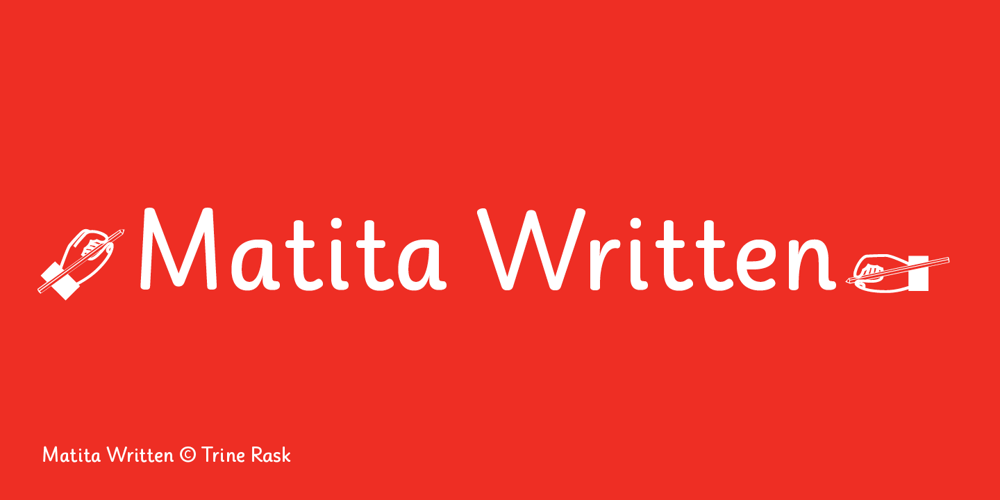
Matita Written Font Family was designed by Trine Rask and published by Trine Rask. Matita Written contains 5 styles and family package options. Matita Written is the first release from a larger type family developed from 2005 through 2019 with handwriting in mind. It is a solid sans serif in two weights and dotted instructional versions, with alternative glyphs based on different writing habits. For teaching, teaching material or just typography. An unchildish handwritten type family for many purposes.